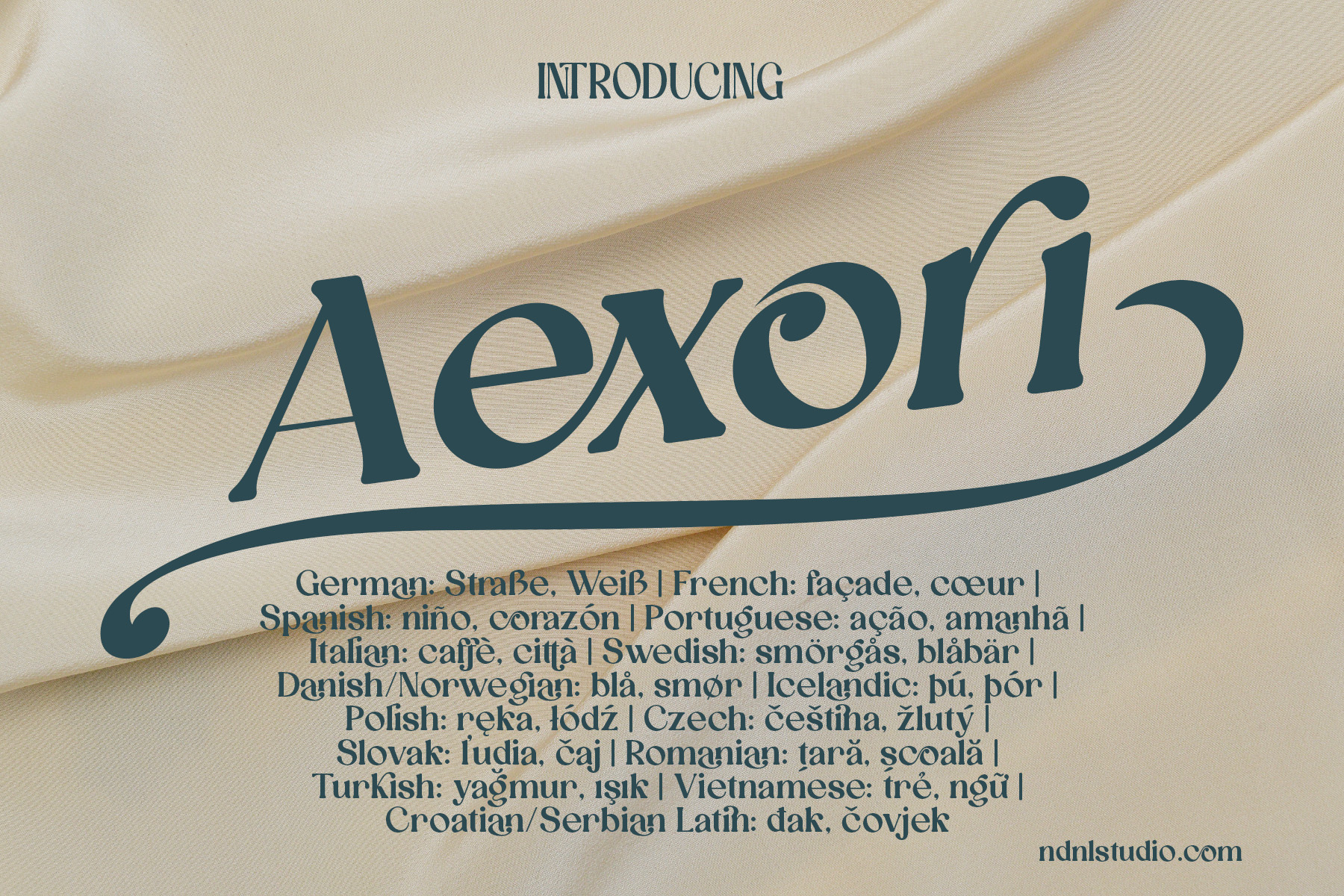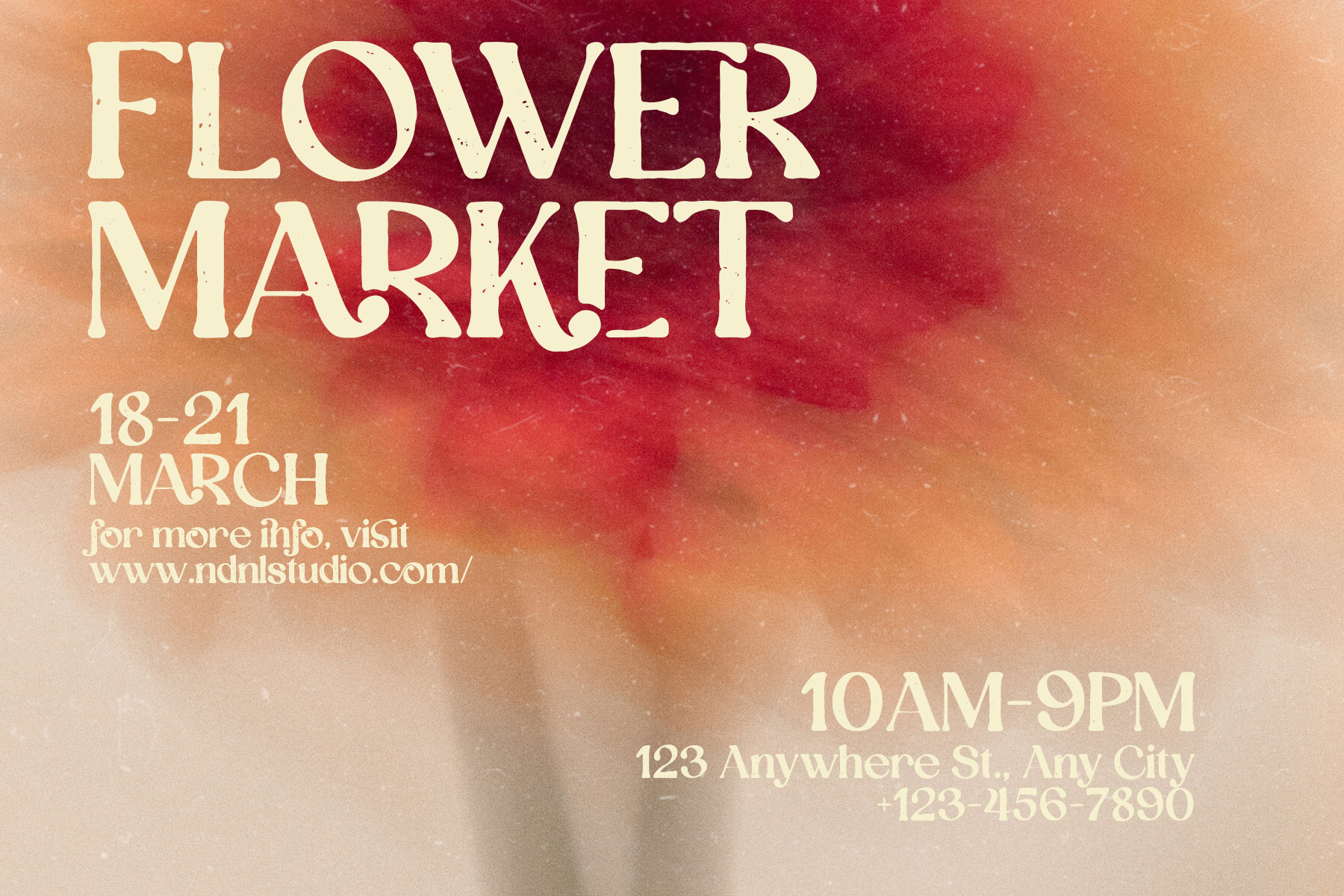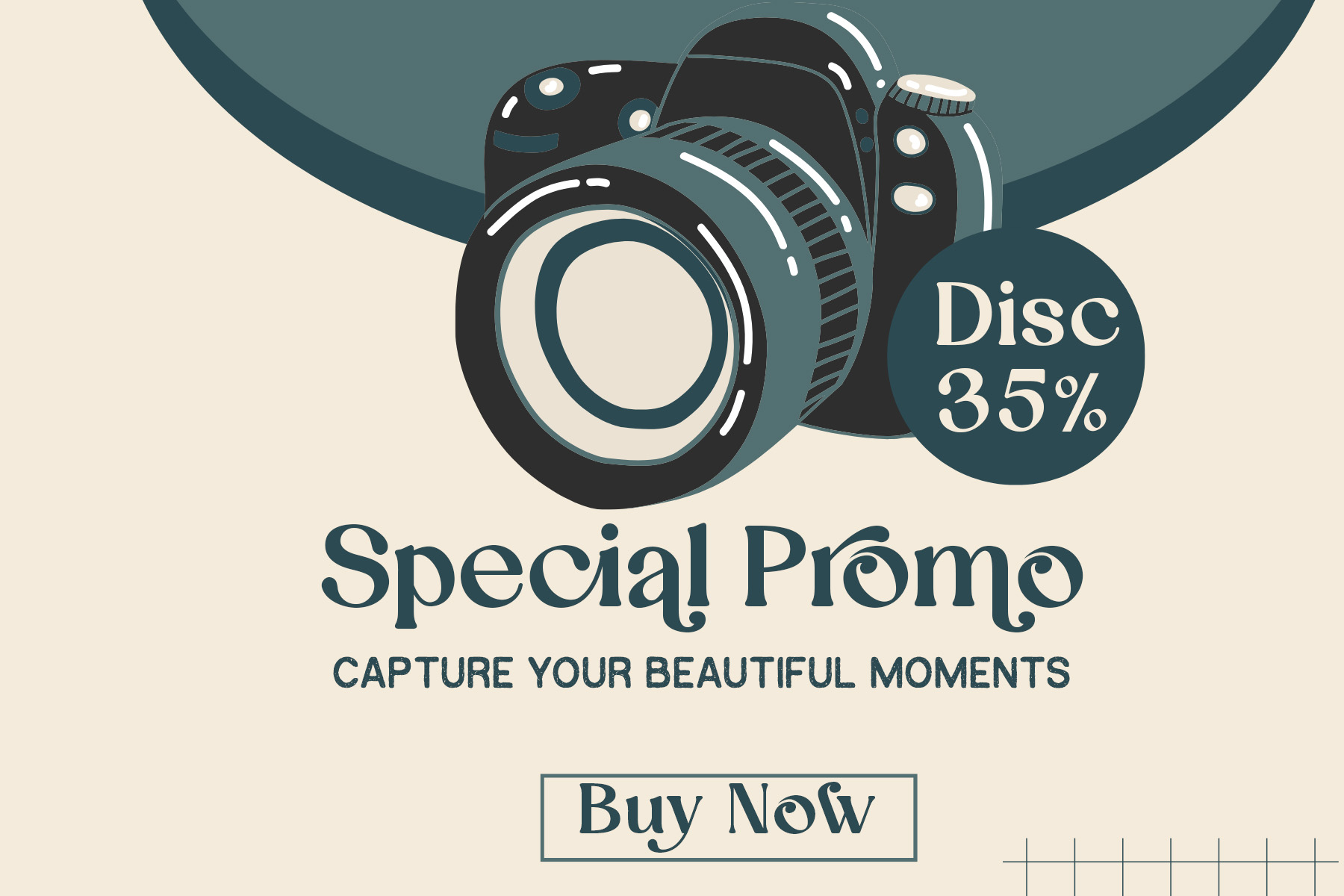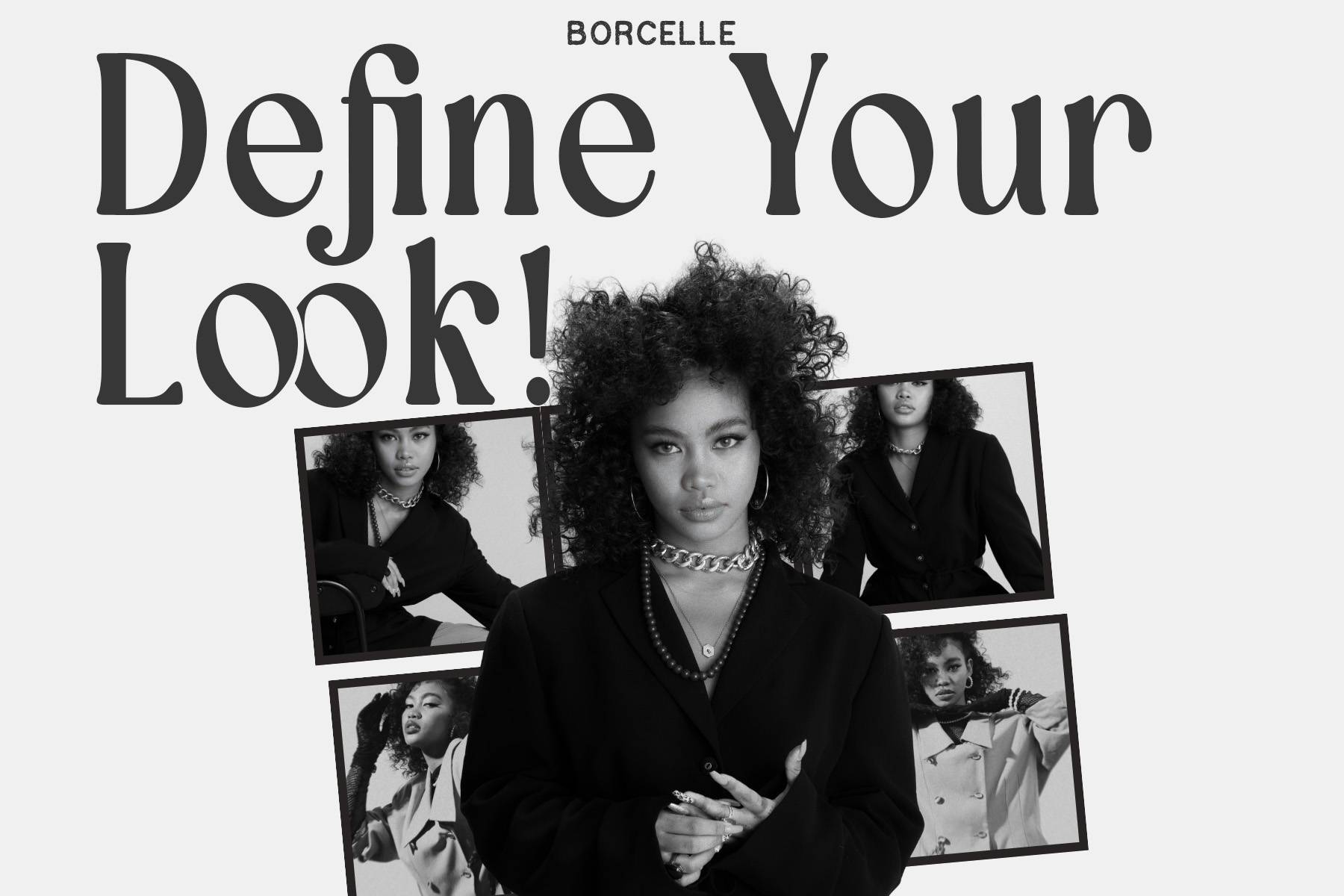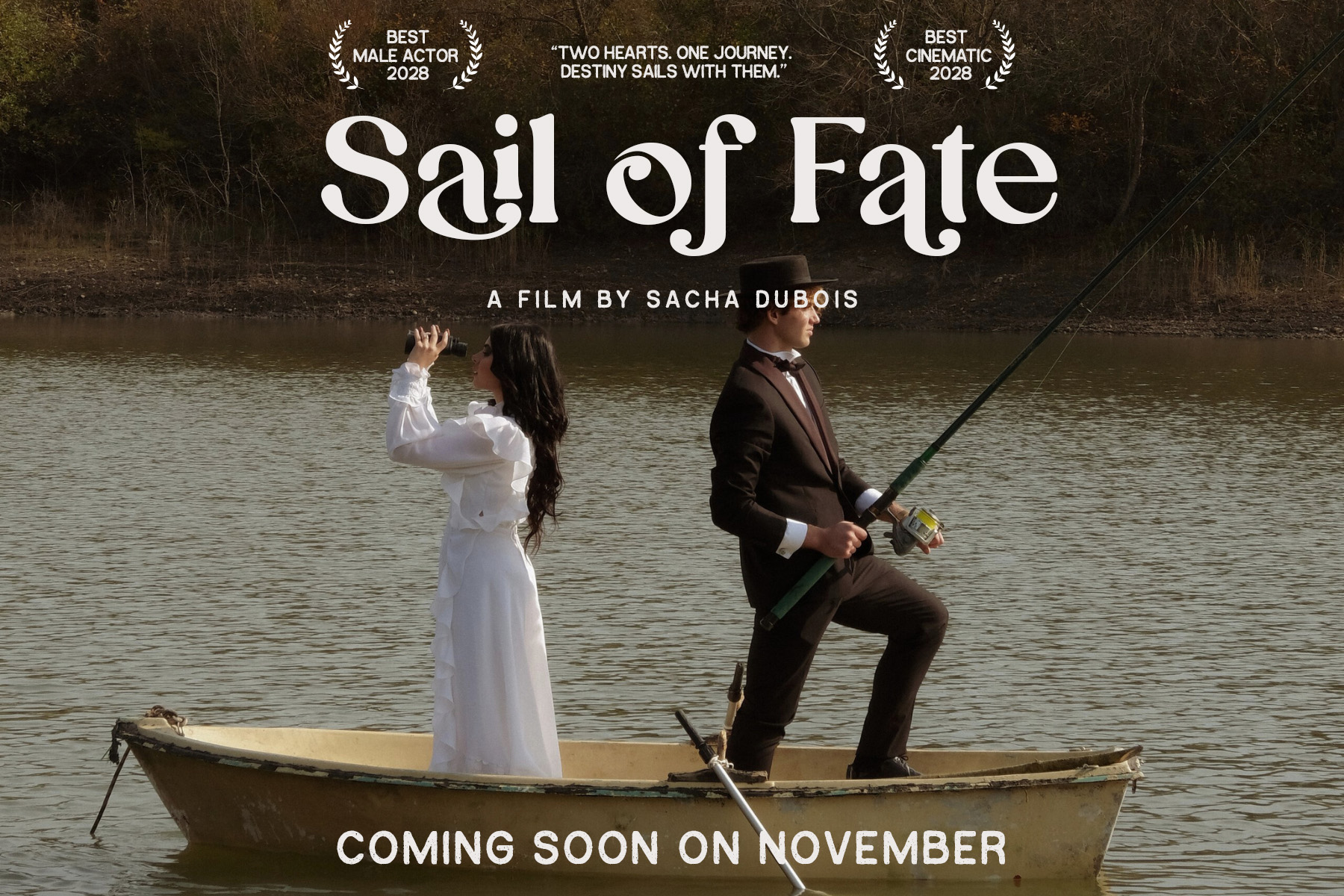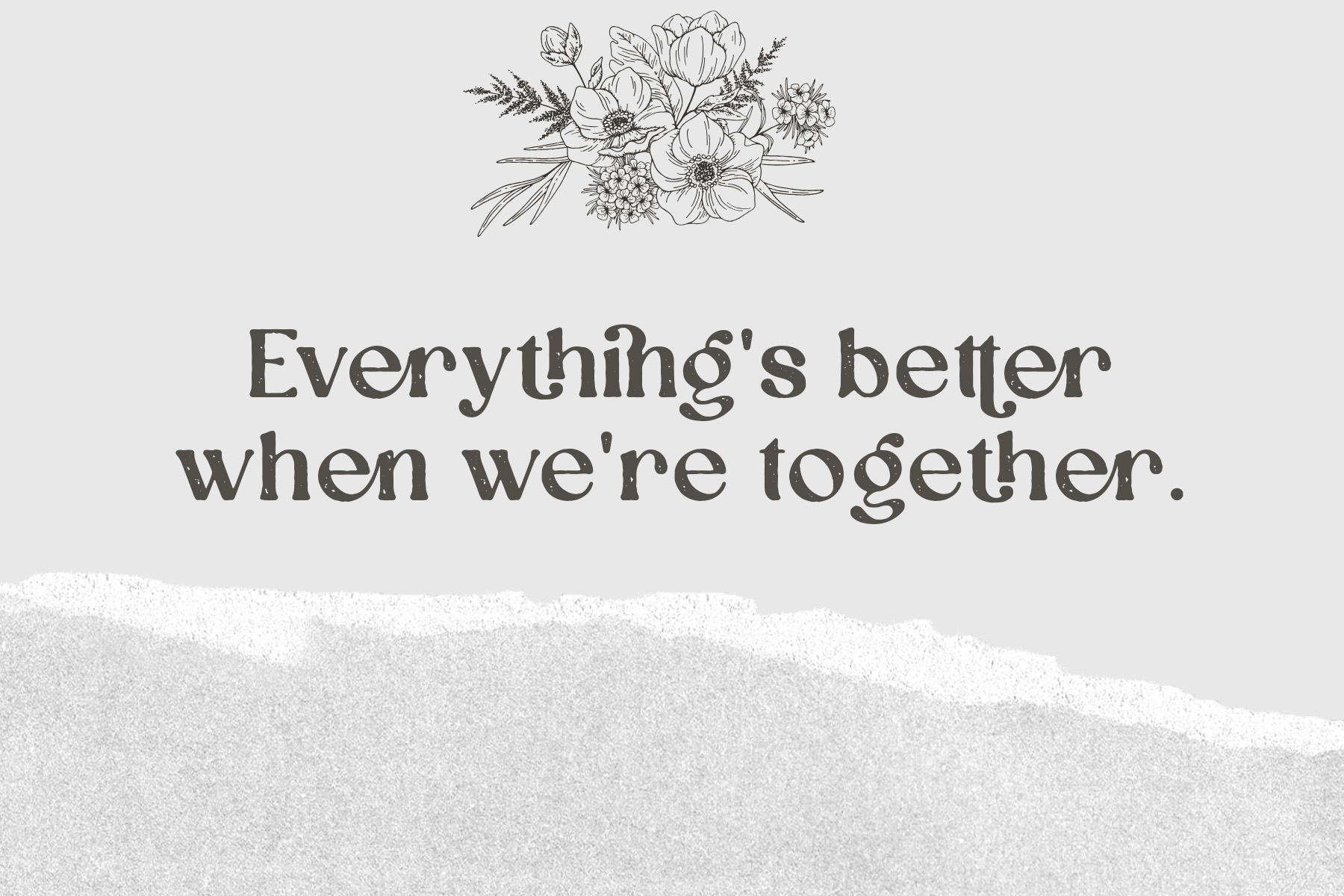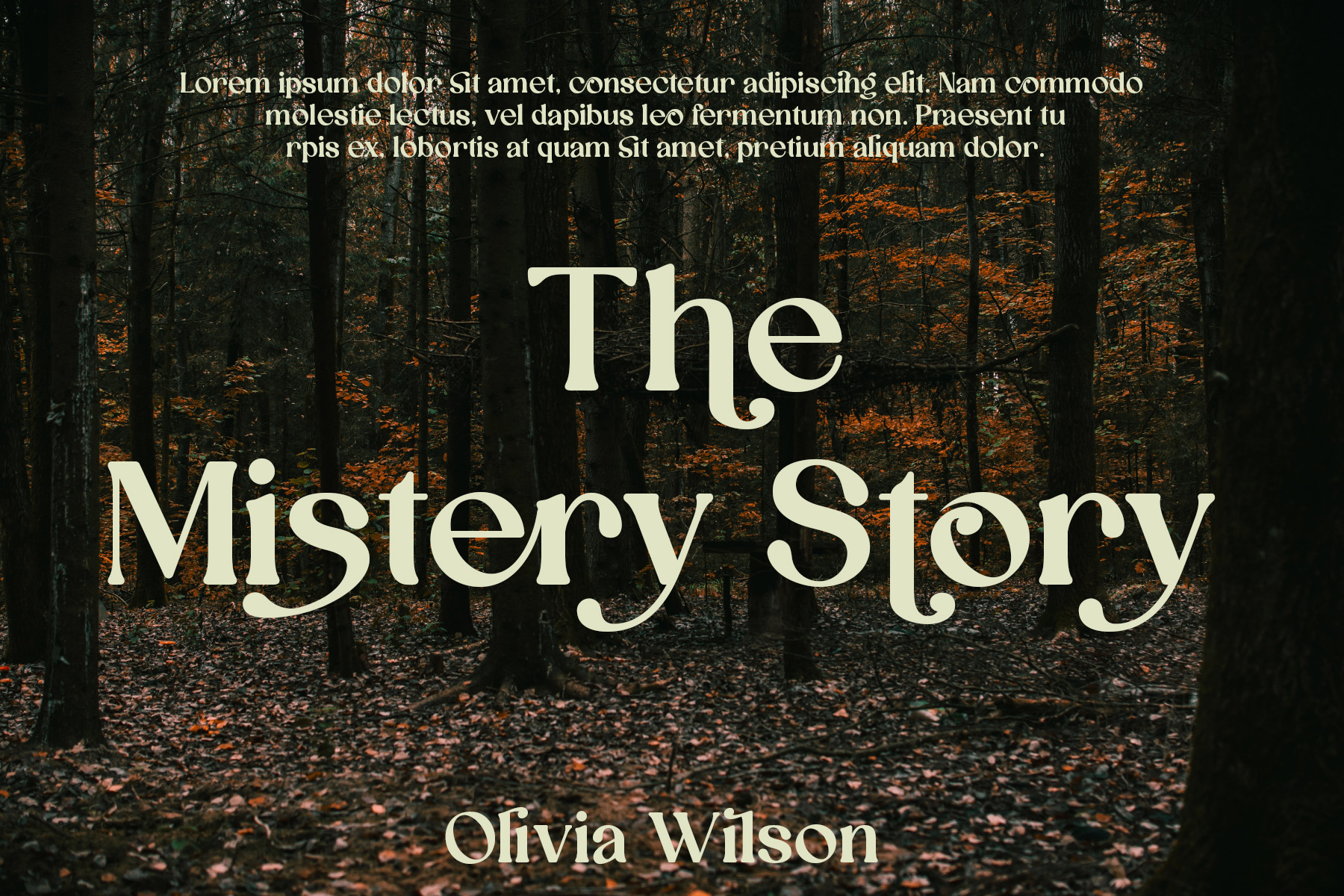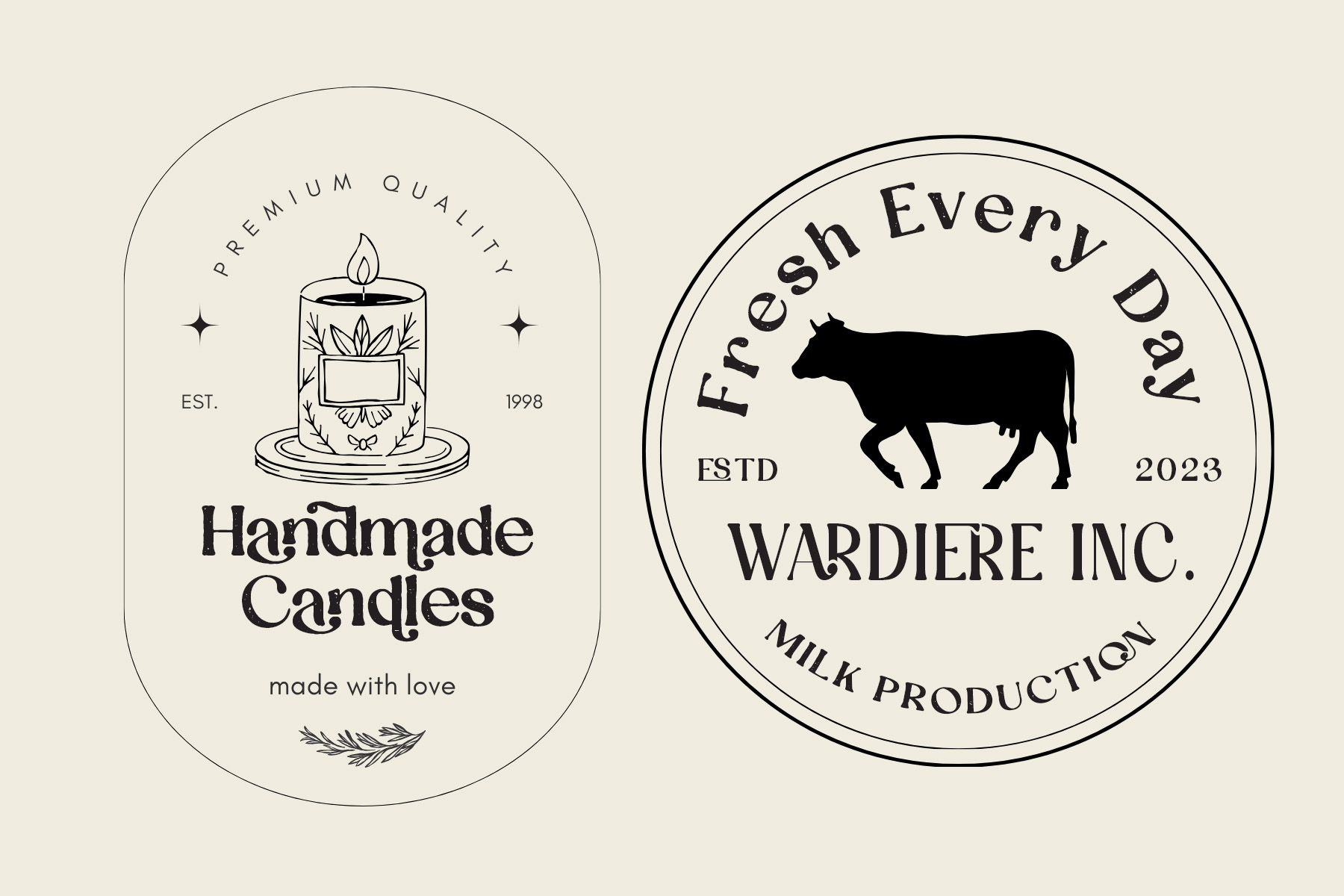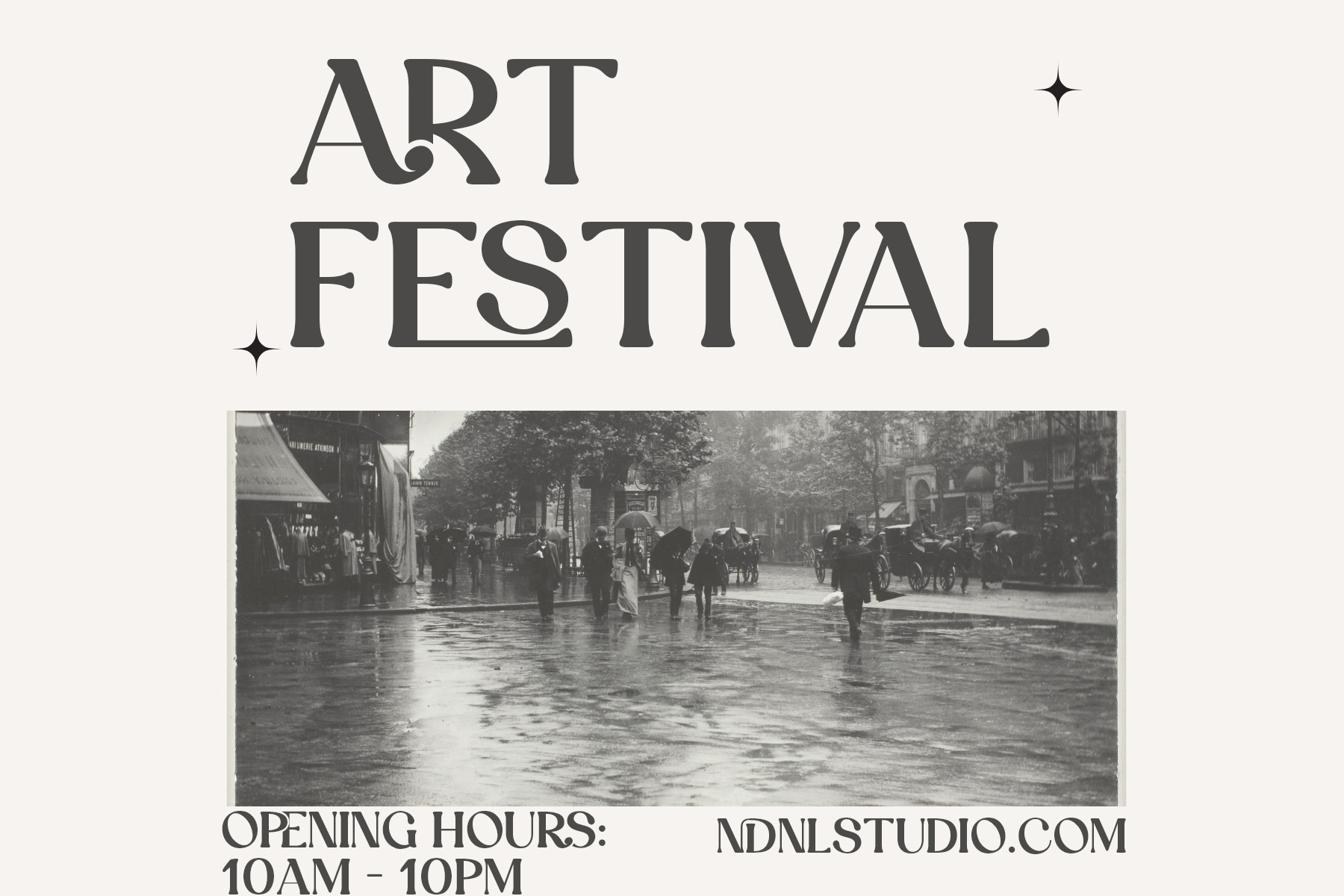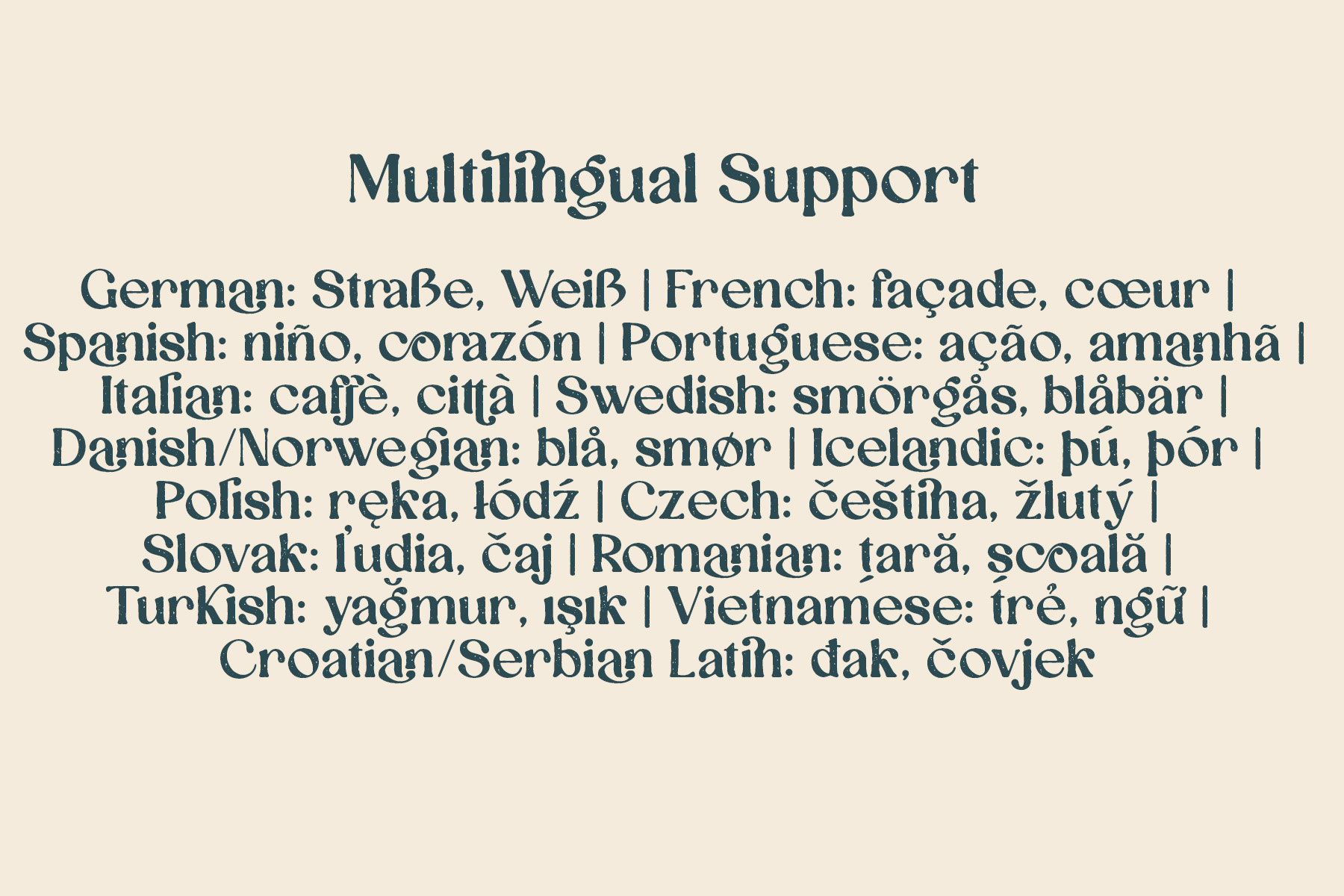
Introducing Aexori!
Aexori is an elegant serif typeface that blends classic charm with modern softness. Its graceful curves, refined rounded details, and artistic swashes create a luxurious and expressive visual presence. The flowing extended swash adds a distinctive and captivating touch to any composition.
Aexori is perfect for premium logos, fashion branding, cosmetic packaging, wedding stationery, magazine headlines, and vintage or romantic-themed projects. With extended Latin multilingual support, it allows seamless use across diverse markets.